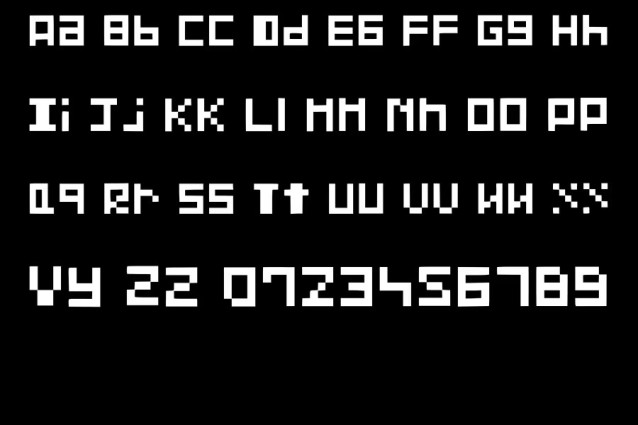
Geet Font
Geet Font, my first-ever original font! It’s a bold & unique display typeface built from sharp, clean segments, giving it a classic retro-digital feel.
Geet is best used in all caps for maximum impact and legibility